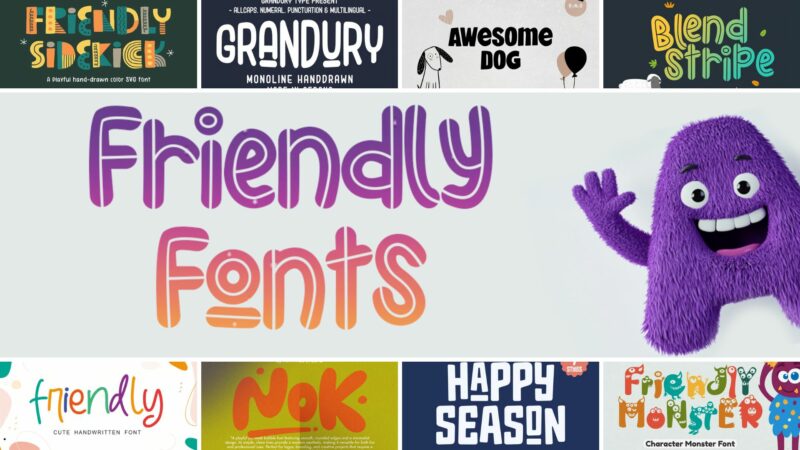
The right font can make the difference between a design that feels cold and distant versus one that instantly makes people feel welcome and at ease. Friendly fonts have this magical ability to transform any project into something that feels more approachable and inviting – whether it’s a corporate website, a children’s book, or a neighborhood coffee shop logo.
In this comprehensive guide, we’ll explore the world of friendly fonts and discover how they can add warmth and personality to your designs. I’ll share my top picks for the most inviting typefaces of 2026, along with expert tips on how to use them effectively.
The Friendliest Fonts of the Year
Friendly Sidekick Font
This decorative font features cute and cutout elements, perfect for creating a welcoming and approachable design. Its playful nature makes it ideal for children’s books, greeting cards, or any project requiring a friendly touch.
Friendly Smiley
A script and handwritten font that exudes playfulness and whimsy. Its casual, hand-drawn style is perfect for creating designs that feel personal and inviting, making it great for social media graphics or informal branding.
Advio friendly font
This decorative font offers a friendly and approachable feel with its rounded edges and smooth curves. Available in both OTF and font formats, it’s versatile for various design applications, from logos to headlines.
Klop – Friendly Rounded Font
A sans-serif font with a rounded, friendly appearance. Its soft edges and clean lines make it highly legible while maintaining a welcoming feel, perfect for both display purposes and body text in friendly, approachable designs.
Friendly Stranger – A Casual Typeface
This font combines script, handwritten, and sans-serif styles to create a natural, stroke-based typeface. Its casual appearance makes it ideal for designs that aim to create a relaxed, approachable atmosphere.
Slowly Life – Friendly Handwritten
A script and handwritten font that captures the essence of cute, handwritten text. Its organic flow and friendly character make it perfect for personal branding, blog headers, or any design requiring a genuine, hand-crafted feel.
Hey June – Friendly Children Font
This sans-serif, decorative font is designed with children in mind. Its friendly and organic appearance makes it ideal for children’s books, educational materials, or any project targeting a young audience.
Friendly – Monoline Font
A script and handwritten font featuring a consistent monoline stroke. Its calligraphic style combined with modern simplicity makes it versatile for various applications, from logo design to wedding invitations.
Parakids – Fun and Friendly Handwritten Font
This script and handwritten fun font captures the essence of children’s handwriting. Its playful and authentic look makes it perfect for designs targeting kids, such as book covers, game designs, or educational materials.
Friendly Monster – Character Monster Font
A decorative font that brings monster characters to life. Its spooky yet kid-friendly design makes it ideal for Halloween-themed projects, children’s monster books, or any design requiring a touch of playful eeriness.
Rubber Duck – Kids Friendly Font
This sans-serif font is designed with a book and cartoon-like aesthetic. Its rounded, friendly appearance makes it perfect for children’s literature, educational materials, or any design targeting a young audience.
Happy Season – Modern Playful Sans Serif
A sans-serif font with a modern, playful twist. Its rounded edges and decorative elements make it suitable for branding projects that require a friendly yet contemporary feel.
Gunnar
A sans-serif font with a vintage flavor and rounded edges. Its retro-inspired design makes it ideal for creating nostalgic designs or adding a touch of warmth to modern projects.
Friendly Amigos
This script and handwritten font exudes a friendly, approachable vibe. Its casual style makes it perfect for designs that aim to create a personal connection, such as social media posts or informal branding materials.
Rasane
A sans-serif font with a casual, display-friendly design. Its relaxed appearance makes it suitable for headlines, posters, or any project requiring a laid-back yet clear typeface. Think of it as a more relaxed and friendly alternative to Impact.
Murky
This script and handwritten font brings a joyful, display-worthy character to designs. Its playful nature makes it ideal for creating eye-catching headlines or adding a touch of whimsy to various projects.